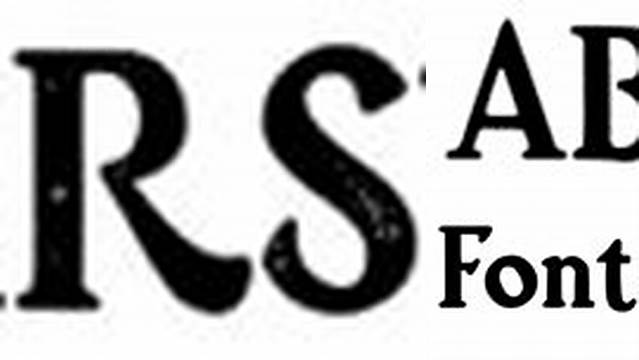
VFC Ruiz Font: Free Download & Vintage Design Guide
What is VFC Ruiz Font?
So, what exactly is the VFC Ruiz Font? It's a beautifully crafted typeface that falls under the umbrella of vintage fonts. Imagine those old-school posters, classic book covers, and timeless advertisements – that’s the vibe the VFC Ruiz Font brings to your designs. This font is designed with meticulous attention to detail, ensuring it captures the essence of vintage typography. It's perfect for projects that need a touch of nostalgia and sophistication. The VFC Ruiz Font stands out because of its unique letterforms and balanced design, making it highly readable and visually appealing. Whether you're working on a branding project, a website design, or even just a personal creative endeavor, this font can add a distinctive and memorable flair.
Why Choose Vintage Fonts?
Why go for vintage fonts in the first place? Well, vintage fonts have a certain charm that modern fonts often lack. They evoke feelings of nostalgia, history, and timelessness. Using vintage fonts can make your designs stand out and create a lasting impression. Think about it: when you see a design with a vintage font, it instantly grabs your attention. It tells a story, connects with the past, and adds a layer of depth that’s hard to replicate with contemporary typefaces. Plus, vintage fonts are incredibly versatile. They can be used in a wide range of projects, from branding and advertising to web design and print materials. The key is to find the right vintage font that complements your overall design and message. The VFC Ruiz Font, with its elegant and classic design, is a great choice for adding that timeless appeal to your work.
Benefits of Using VFC Ruiz Font
Using the VFC Ruiz Font comes with a bunch of perks. First off, it's super versatile. Whether you're designing a logo, creating posters, or sprucing up your website, this font can handle it all. Its elegant and readable design ensures that your message comes across clearly while still looking stylish. Another great benefit is its ability to evoke a sense of nostalgia and sophistication. By using this vintage font, you can add a touch of class to your projects and make them stand out from the crowd. The VFC Ruiz Font also supports multiple languages, making it suitable for international projects. Plus, it's available in various weights and styles, giving you plenty of options to choose from. All these features make the VFC Ruiz Font a valuable addition to any designer's toolkit.
Using VFC Ruiz Font in Graphic Design
When it comes to graphic design, the VFC Ruiz Font is a versatile tool that can elevate your projects. Its classic and elegant design makes it perfect for a wide range of applications, from logos and branding to posters and advertisements. When using this vintage font, consider the overall aesthetic you want to achieve. The VFC Ruiz Font pairs well with other vintage elements, such as antique illustrations and retro color palettes. Experiment with different font sizes and weights to create visual hierarchy and emphasis. In logos, the VFC Ruiz Font can convey a sense of sophistication and heritage, making it ideal for businesses that want to project a classic image. In posters and advertisements, it can grab attention and evoke a feeling of nostalgia. Remember to use the font sparingly and strategically to avoid overwhelming the design. With careful consideration, the VFC Ruiz Font can be a powerful asset in your graphic design toolkit.
VFC Ruiz Font for Web Design
Incorporating the VFC Ruiz Font into your web design projects can add a unique touch of vintage charm. However, it's important to consider how fonts perform on the web. Since the VFC Ruiz Font is a decorative typeface, it's best used for headings, titles, and short snippets of text, rather than large blocks of body copy. This ensures readability and prevents the font from overwhelming the user experience. When using the VFC Ruiz Font on your website, make sure to optimize it for web use. This involves converting the font to web-friendly formats like .woff or .woff2, which are compressed and designed for faster loading times. You can use online font converters to easily create these formats. Additionally, use CSS to specify the font-family and ensure that the font renders correctly across different browsers and devices. Consider using font-display properties to control how the font loads and prevent issues like text flashing or invisible text. With proper optimization, the VFC Ruiz Font can enhance the visual appeal of your website and create a memorable browsing experience.
Pairing VFC Ruiz Font with Other Fonts
Pairing fonts effectively is crucial for creating visually appealing and balanced designs. The VFC Ruiz Font, with its elegant and vintage style, works well with a variety of other fonts. When pairing, aim for contrast to create visual interest and hierarchy. For example, you could pair the VFC Ruiz Font with a clean and modern sans-serif font for body text. This combination provides a balance between classic and contemporary elements, making the design both stylish and readable. Some good sans-serif options include Open Sans, Lato, and Montserrat. Another approach is to pair the VFC Ruiz Font with a simple serif font for a cohesive and harmonious look. Options like Merriweather or Playfair Display can complement the VFC Ruiz Font without competing for attention. Experiment with different font pairings to see what works best for your specific project. Consider the overall tone and message you want to convey, and choose fonts that support that vision. With the right pairings, the VFC Ruiz Font can truly shine and elevate your designs.
The Importance of Kerning and Tracking in Vintage Typography
The importance of kerning and tracking in vintage typography cannot be overstated. Kerning and tracking are subtle but crucial adjustments that affect the spacing between letters and words, ultimately impacting the readability and visual appeal of your design. Kerning refers to the adjustment of space between individual letter pairs, while tracking refers to the uniform adjustment of space across an entire word or line of text. In vintage typography, where fonts often feature intricate details and unique letterforms, proper kerning and tracking are essential for creating a balanced and harmonious look. Poor kerning or tracking can lead to awkward gaps or overlapping letters, making the text difficult to read and detracting from the overall design. When working with vintage fonts, take the time to carefully adjust the kerning and tracking to optimize readability and visual balance. Use your design software's kerning and tracking tools to fine-tune the spacing between letters and words. Pay attention to letter pairs that tend to cause issues, such as